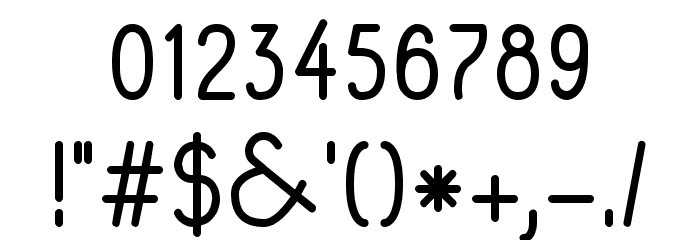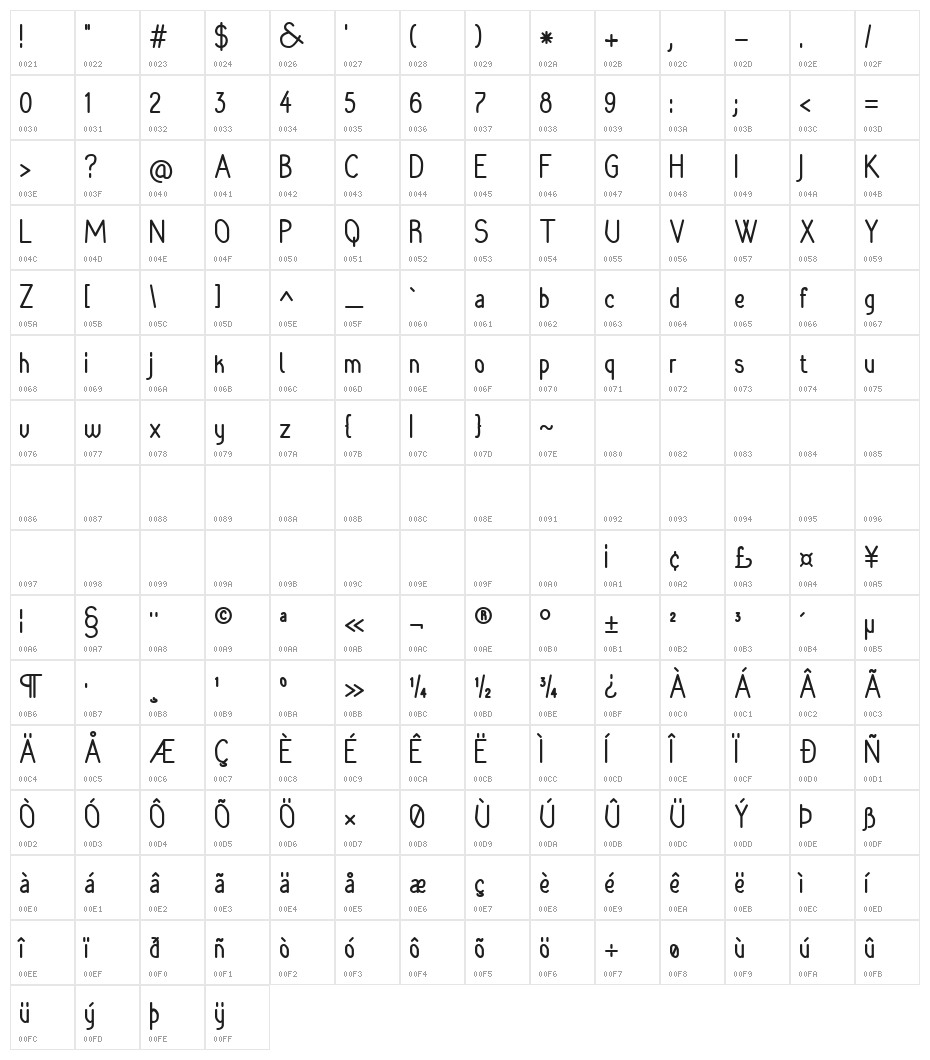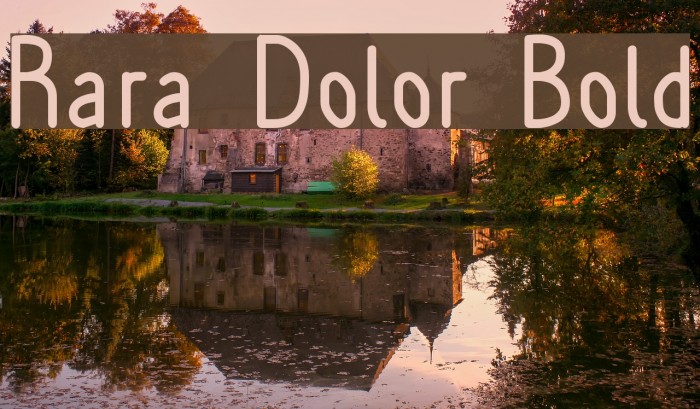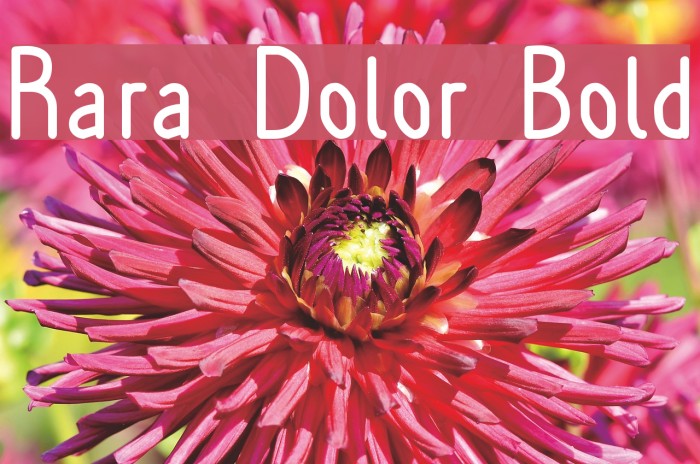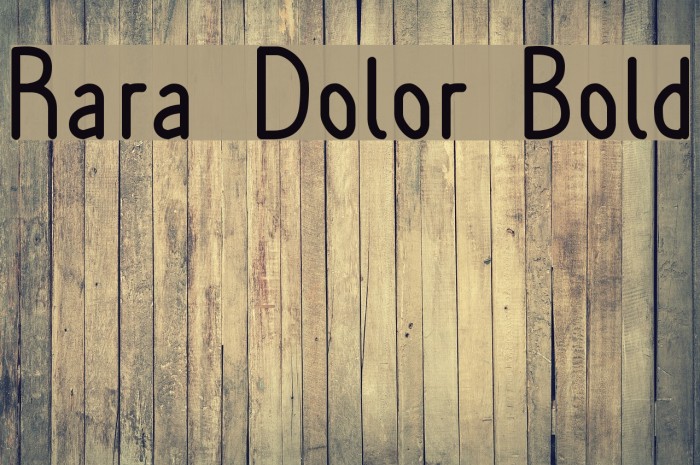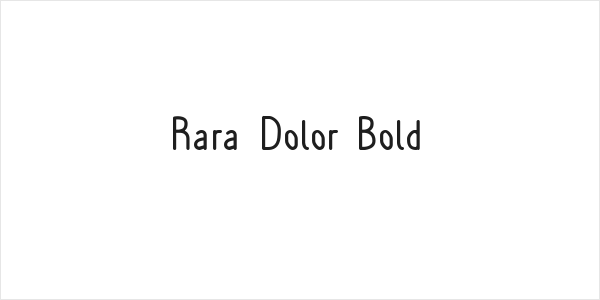
Rara Dolor Bold Font
Rara Dolor Bold Description
This font features a clean and modern design with rounded edges and a uniform stroke width. The characters are evenly spaced, providing a balanced and harmonious appearance. The uppercase letters are tall and slightly condensed, while the lowercase letters maintain a consistent height, enhancing readability. The numerals are clear and distinct, making them suitable for various applications. Special characters are well-integrated, maintaining the overall aesthetic. This font is versatile, suitable for both digital and print media, and can be used in a variety of design projects.